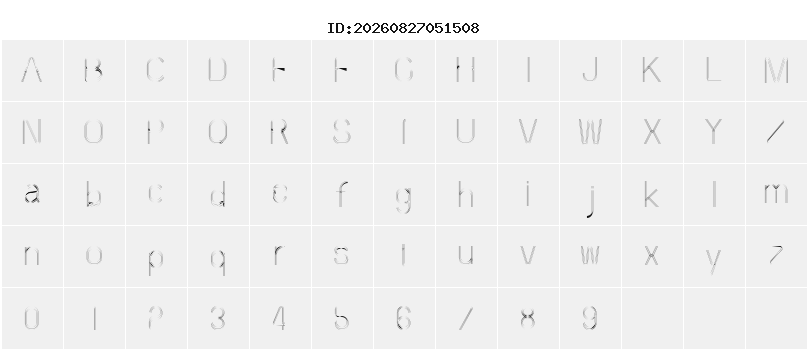
60sSTRIPE Preview
• Font Name: 60sSTRIPE
• Full Font Name: 60sSTRIPE
• PostScript Name: 60sSTRIPE
• Designer: greenegg
• Description: 60sSTRIPE Fonts (greenegg / South Korea)
About 60sSTRIPE.ttf
60sSTRIPE.ttf is a modern, elegant sans-serif font designed for ultimate readability and visual harmony. Perfect for branding, headlines, web design, and print materials.